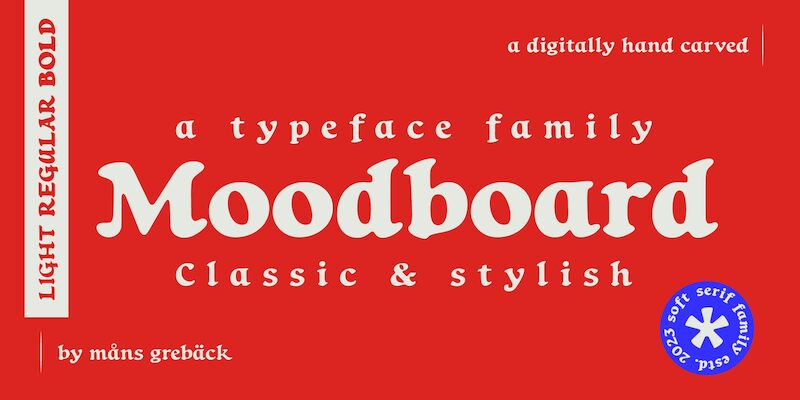
Introducing Moodboard, the perfect display font for your retro-inspired projects. Designed by Mans Greback, this extra-bold and expanded serif typeface exudes a sense of nostalgia that will transport your audience back in time. With its distinct vintage look and feel, Moodboard is ideal for a variety of creative endeavors including branding, packaging design, posters, and more. Its bold letterforms and unique serifs make it stand out from the crowd while its versatility allows it to seamlessly blend with other design elements. Add a touch of old-school charm to your next project with Moodboard.